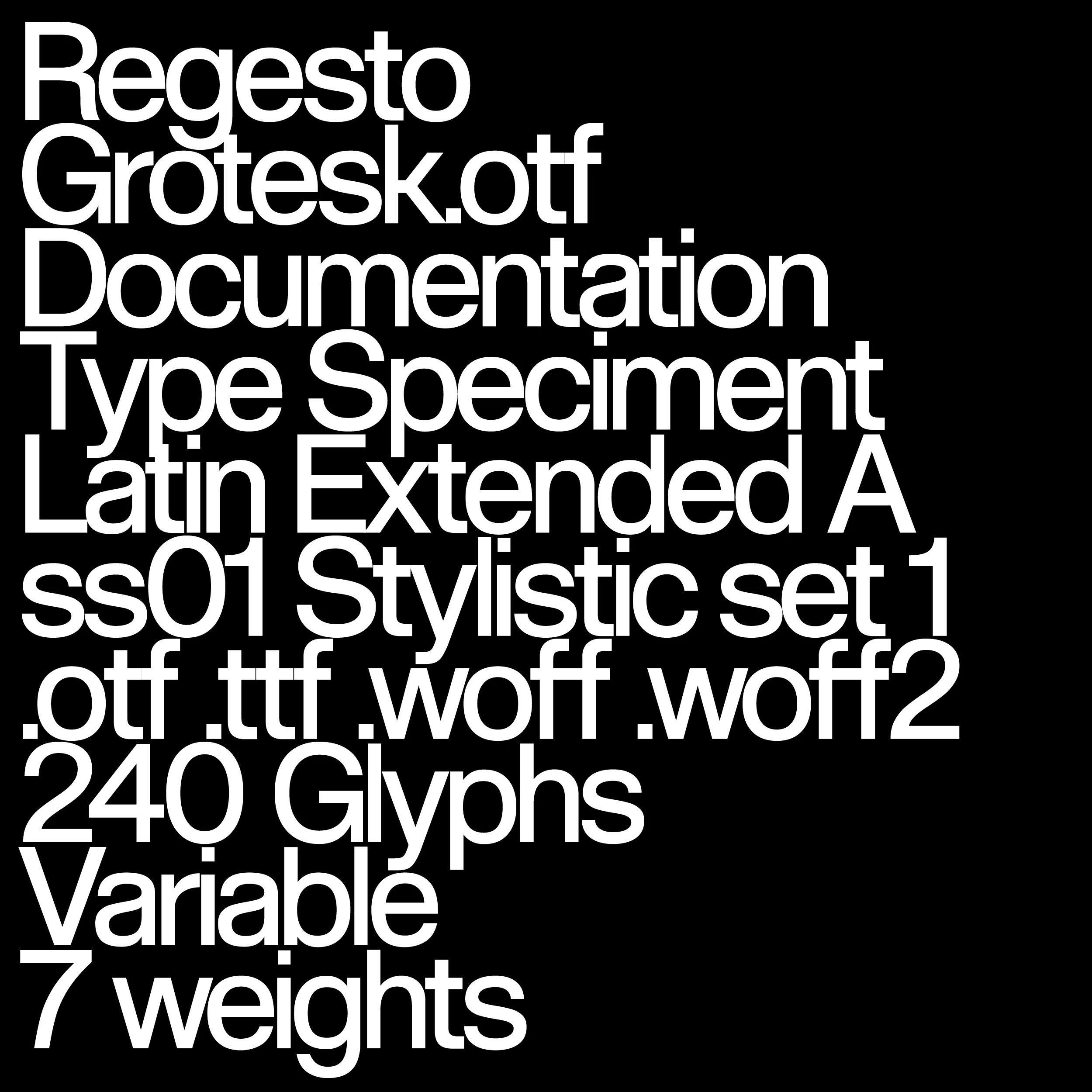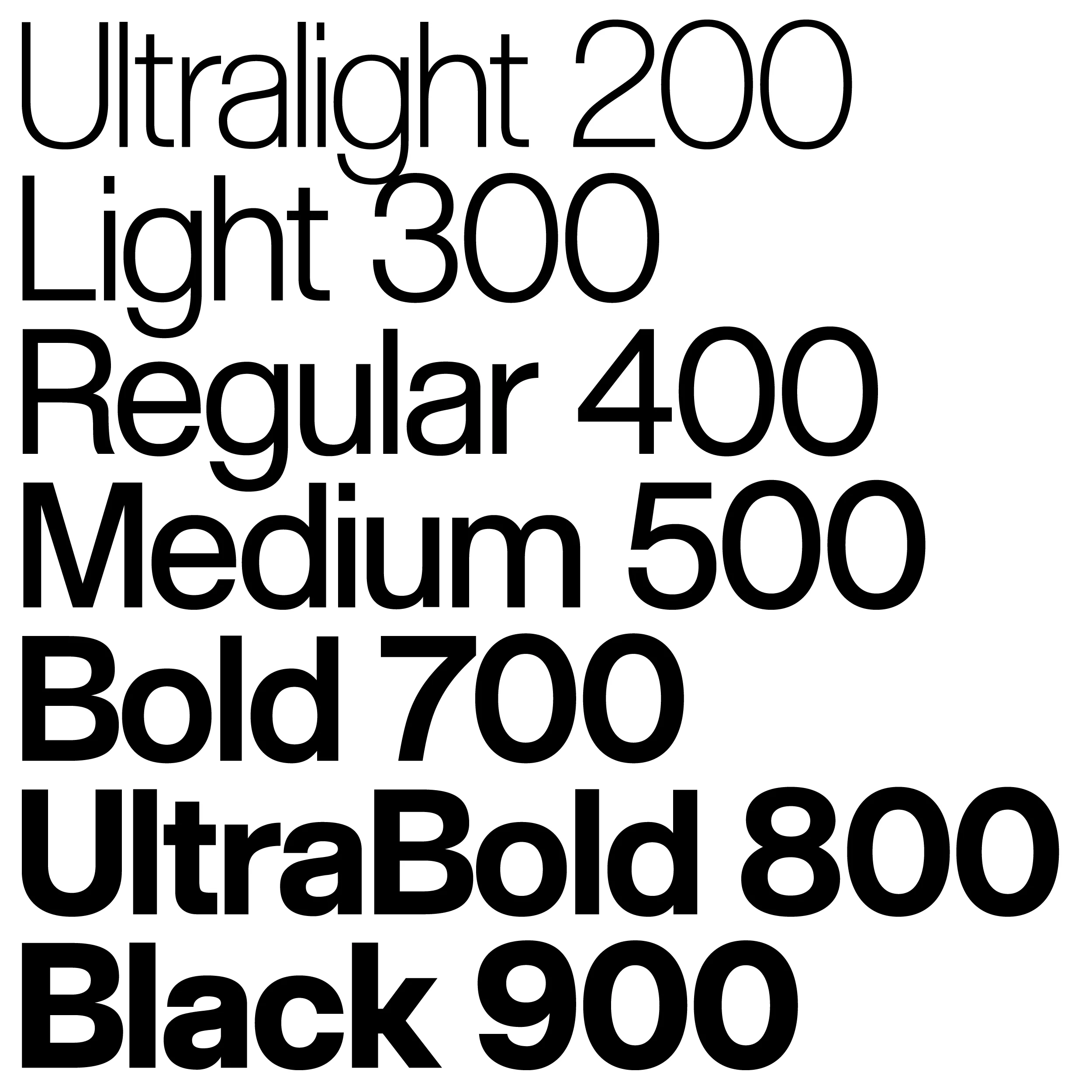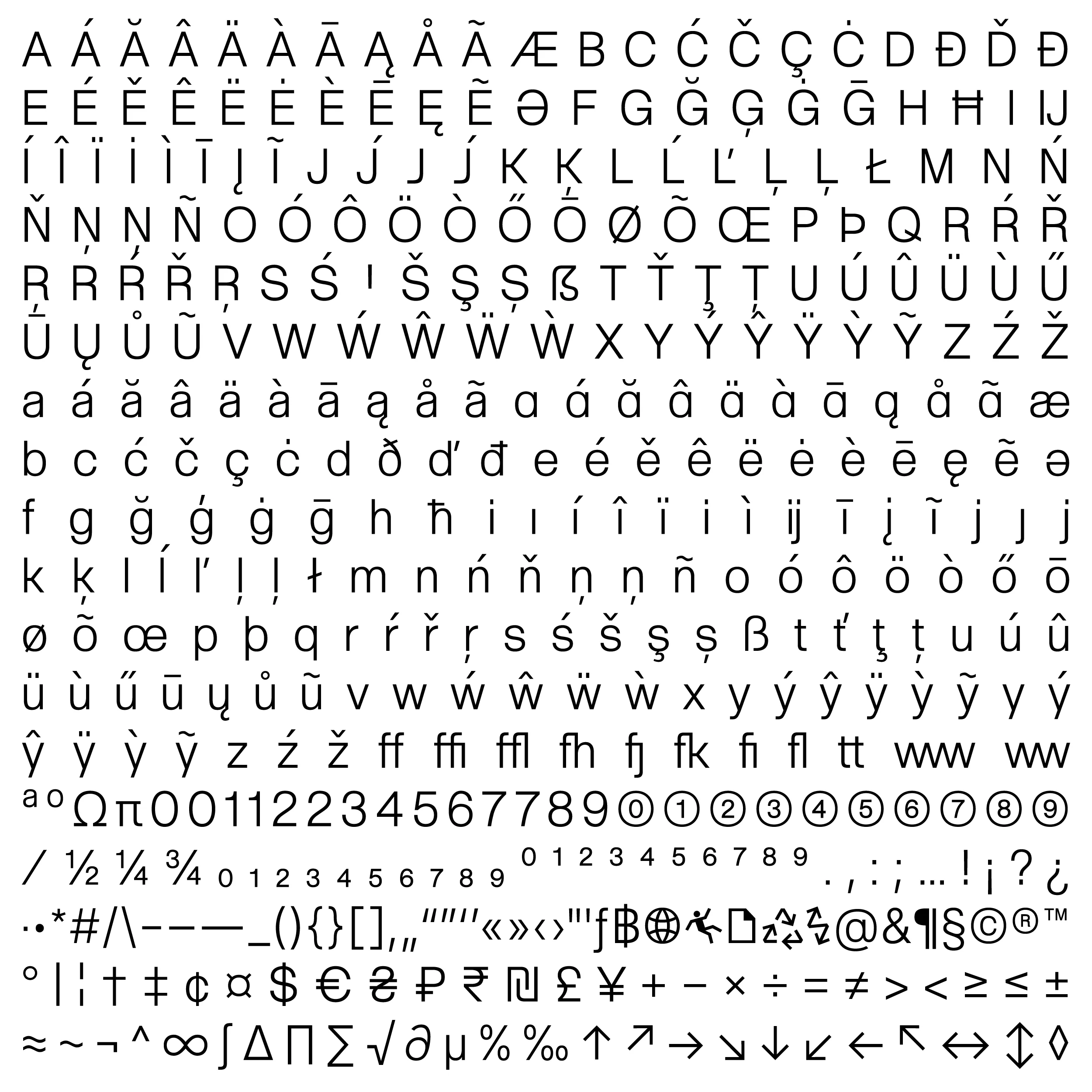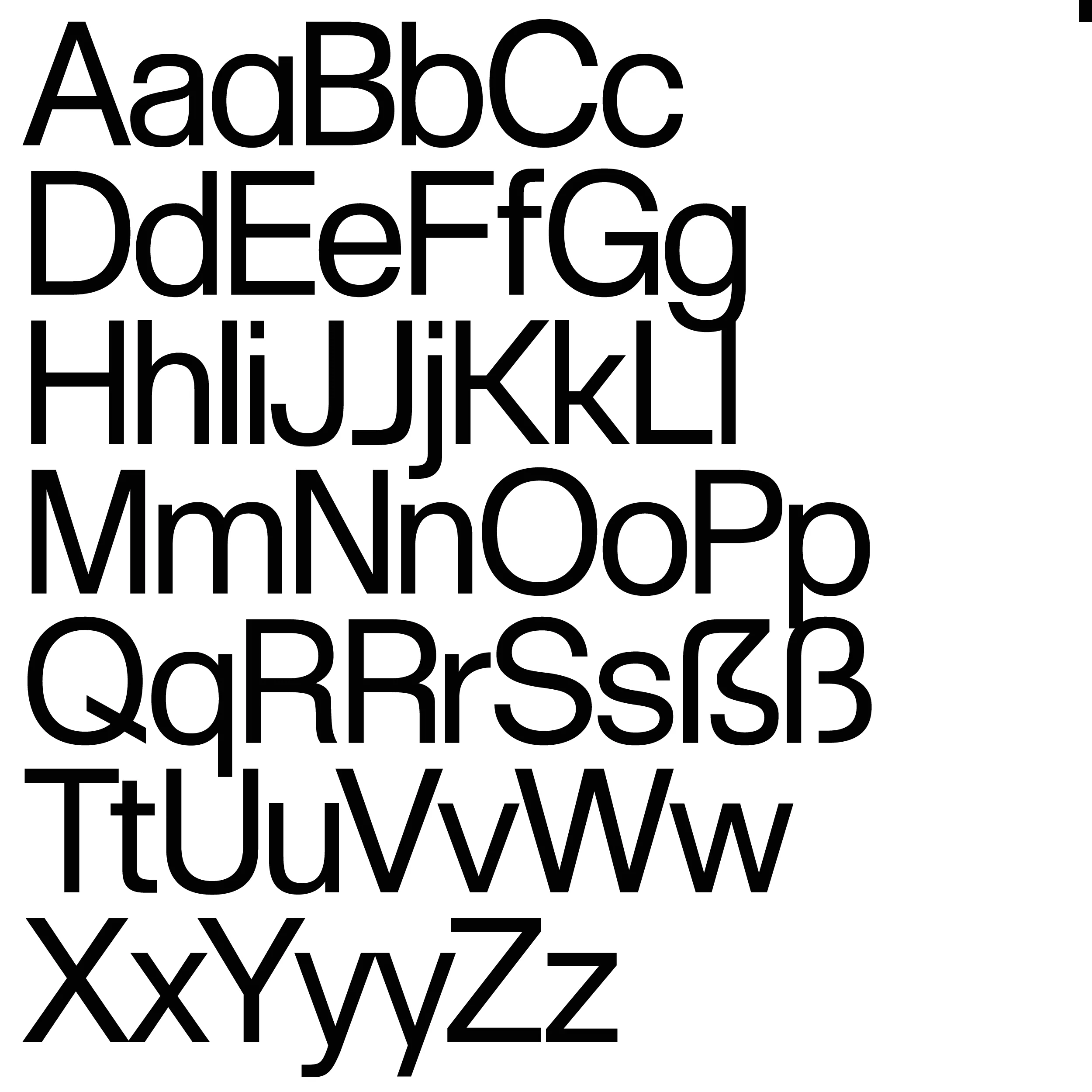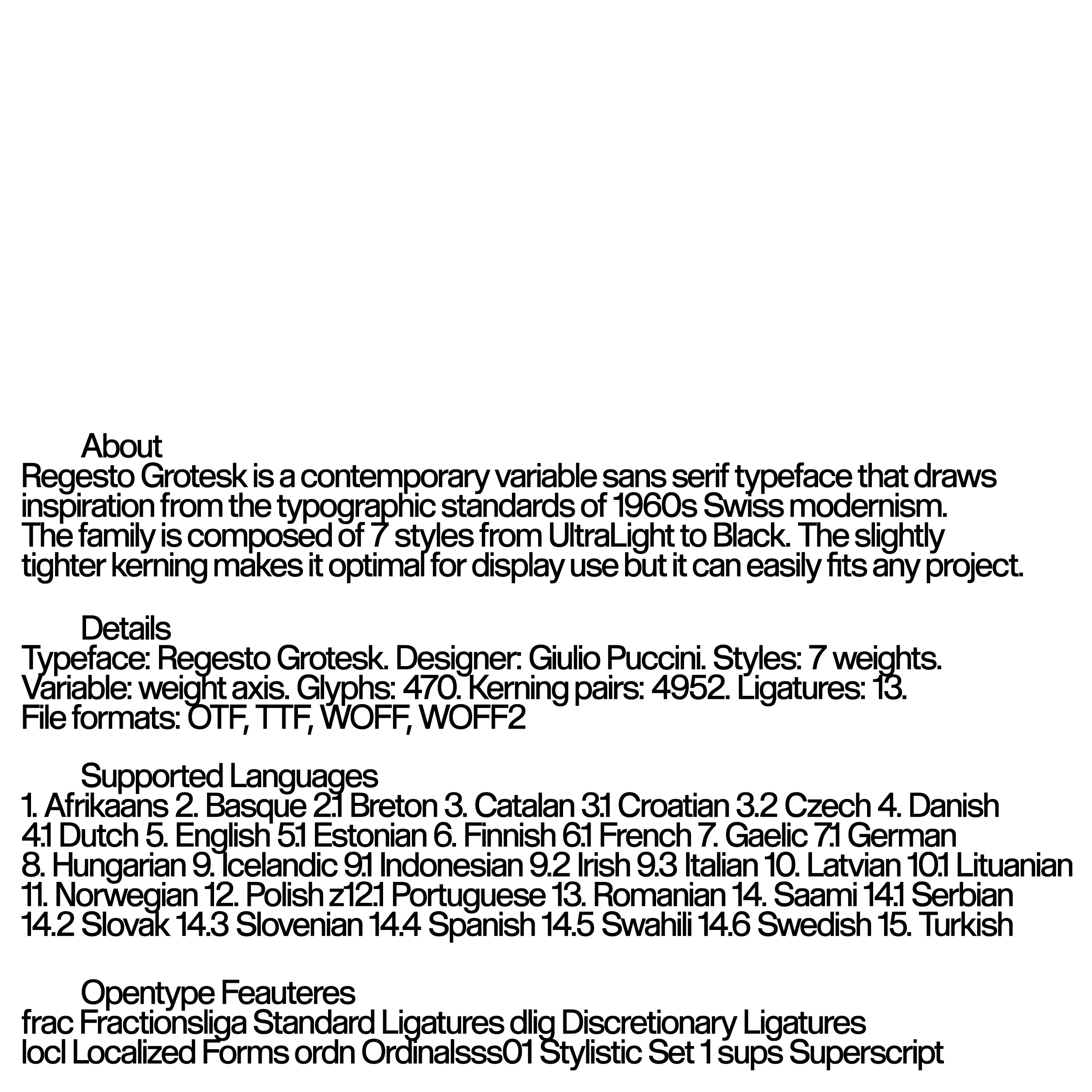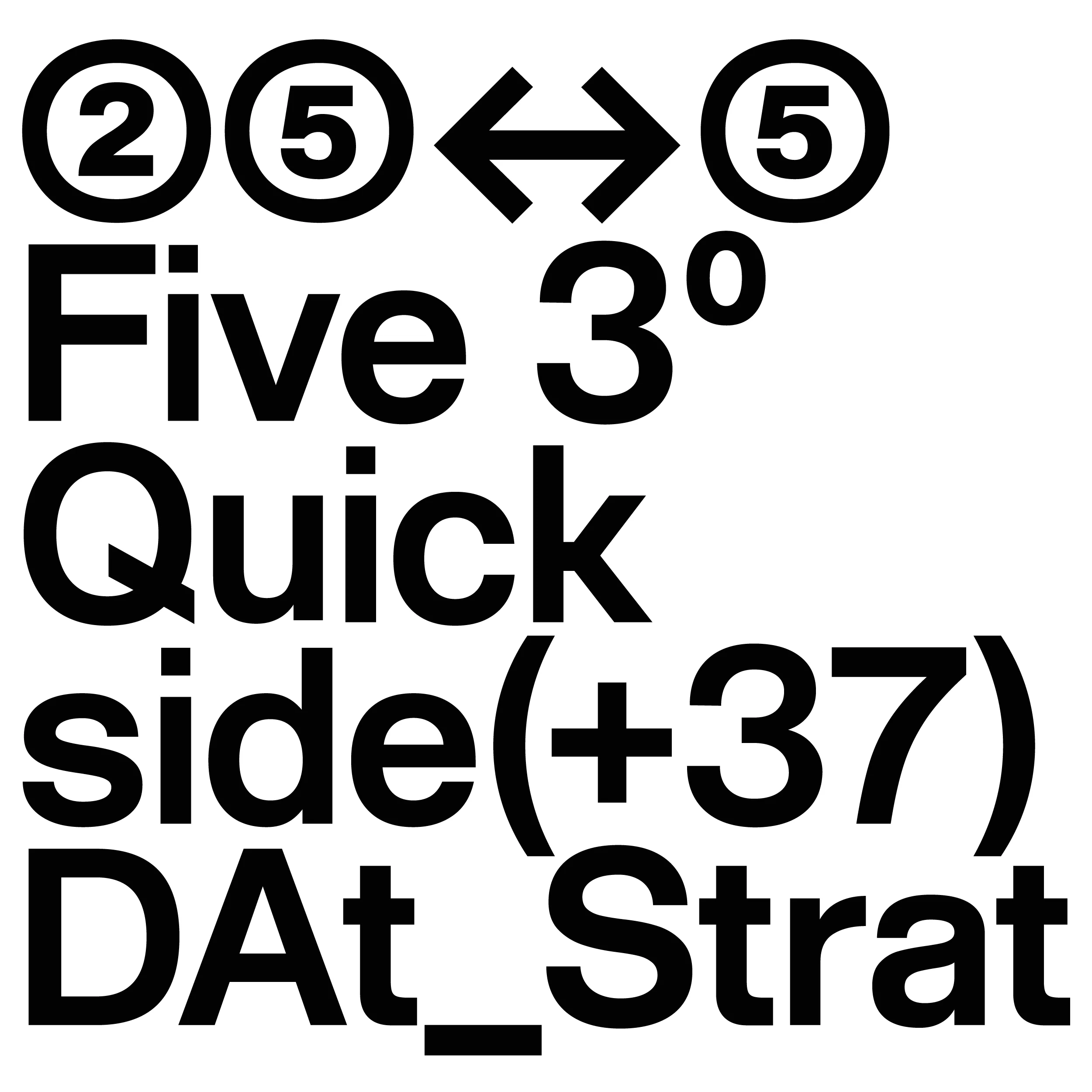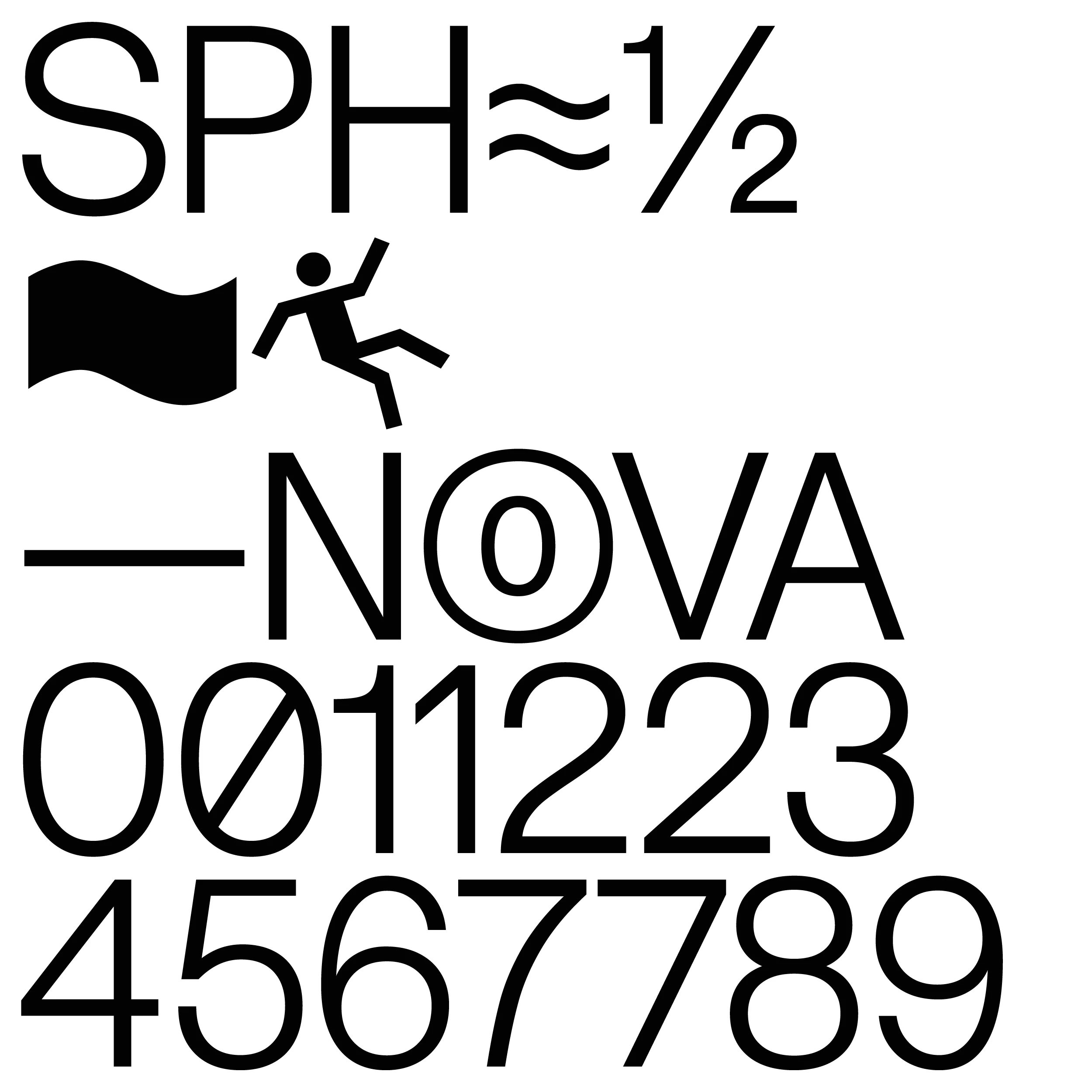
Regesto Grotesk
Regesto Grotesk is a contemporary variable sans serif typeface that draws inspiration from the typographic standards of 1960s Swiss modernism. The family is composed of 7 styles from UltraLight to Black. The slightly tighter kerning makes it optimal for display use but can easily fit any project.
Regesto Grotesk
Regesto Grotesk is a contemporary variable sans serif typeface that draws inspiration from the typographic standards of 1960s Swiss modernism. The family is composed of 7 styles from UltraLight to Black. The slightly tighter kerning makes it optimal for display use but can easily fit any project.